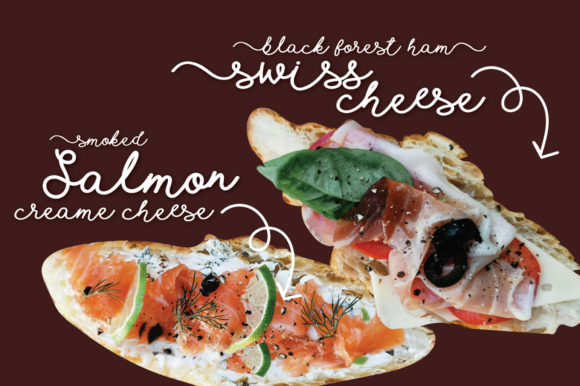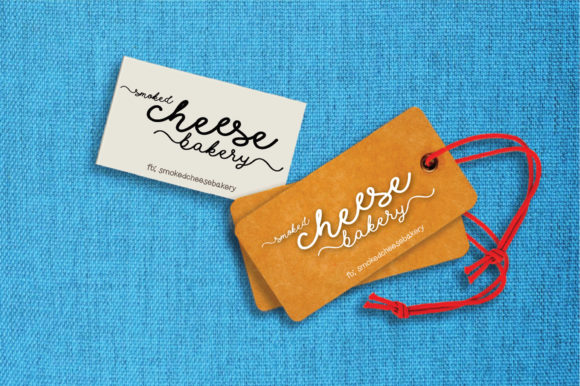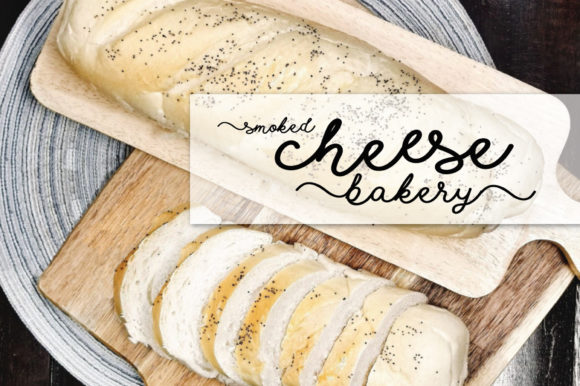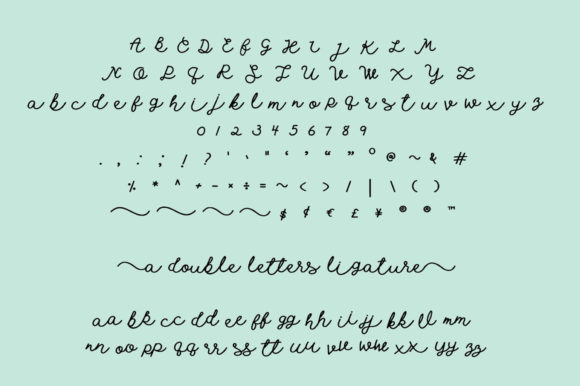
The Elegant Gemello Font: A Designer’s Delight
I still remember the time I was working on a wedding invitation project, and my client asked for a font that was both elegant and playful. I scoured the internet, tried out countless fonts, but nothing seemed to fit the bill. That was until I stumbled upon the lovely Gemello Font. Its delicate script and refined aesthetic instantly won me over, and I knew I had found the perfect fit for my project.
An Honest Review of Gemello Font
- ✨ Elegant and refined script style that’s perfect for formal designs
- ✅ Beautifully crafted letters with intricate details
- 🌈 Versatile and suitable for a wide range of design projects, from wedding invitations to branding and packaging
- 💻 Highly legible, even at smaller font sizes
While Gemello Font is an excellent choice for many design projects, there are a few things to keep in mind:
- 🤔 Limited availability of stylistic alternates, which may limit its use in certain design contexts
- ⚠️ May not be the best choice for very informal or playful designs, as it exudes a more refined and elegant feel
- Experiment with OpenType features, such as ligatures and stylistic alternates, to add visual interest to your design
The Story Behind Gemello Font
Gemello Font was crafted with love and care by a team of designers who wanted to create a beautiful and elegant script font that would add a touch of refinement to any design project. Inspired by traditional calligraphy and lettering, Gemello Font is the result of hours of meticulous work and attention to detail.
Q: What is Gemello Font best suited for?
A: Gemello Font is best suited for formal designs, such as wedding invitations, luxury branding, and high-end packaging.